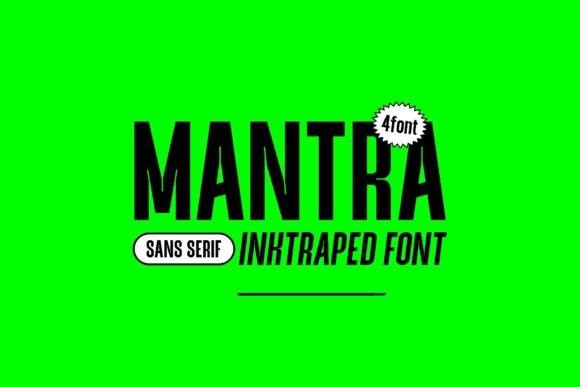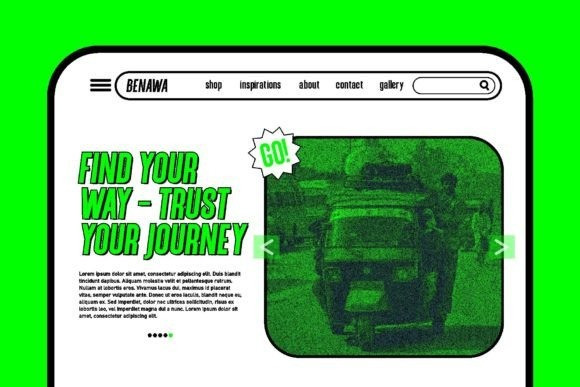
Mantra Font
Mantra is a cool and modern sans serif font. With its classic yet fashionable style, this font is perfect for a wide pool of design ideas.